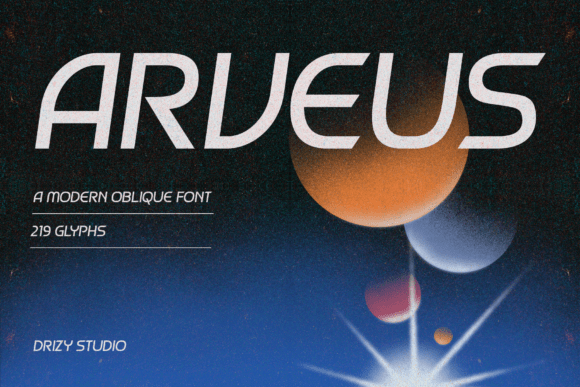
The Power of Speed and Precision in Design
Have you ever felt the rush of adrenaline when watching a sports highlight reel or scrolling through a fast-paced news feed? The rapid-fire visuals and bold typography can be exhilarating, and it’s exactly this energy that the Arveus Font aims to capture.
Designed to deliver speed, precision, and sharp broadcast energy, Arveus is a modern oblique font that’s perfect for broadcast visuals, sports branding, tech identities, and high-impact headlines. Its clean angles and dynamic forward slants create a strong sense of motion, making every word feel fast, confident, and impactful.
For designers looking to elevate their work and make a statement, the Arveus Font offers a unique combination of modern minimalism and aggressive clarity, ensuring maximum readability while maintaining a bold visual attitude.
Arveus Font Key Features
- Unique Character Set: Arveus Font features a unique character set that includes a wide range of glyphs, including international characters and symbols.
- Stylistic Alternates: Arveus Font includes stylistic alternates that allow designers to add a touch of personality to their work, making it stand out in a crowded market.
Arveus Font Review
Overall, I was quite impressed with the Arveus Font, but like any design, it has its strengths and weaknesses.
- ✨ Unique and elegant design that can add a touch of sophistication to any project
- ✨ Highly legible, making it suitable for a wide range of applications, from body text to headings
- ✨ Supports a variety of languages, including Latin, Greek, and Cyrillic scripts
- ⚠️ Limited font sizes and styles, which may limit its versatility in certain design contexts
- ⚠️ May not be the best choice for very small or very large text sizes, as it can become difficult to read
- ⚠️ Not suitable for use in very technical or technical documents, as it lacks certain math and symbol characters
Overall, I would give the Arveus Font 4 out of 5 stars. While it has its limitations, its elegant design and high legibility make it a great choice for many design projects. With a little creativity and planning, you can work around its limitations and create beautiful designs that showcase this font’s unique character.
Tips for Getting the Most Out of Arveus Font
For optimal results, use Arveus Font in headings and titles. It’s also suitable for body text in creative projects. To enhance readability, pair it with a clear and concise design.
Arveus Font is ideal for creative projects, such as:
– Magazine and newspaper layouts
– Brochures and flyers
– Branding and marketing materials